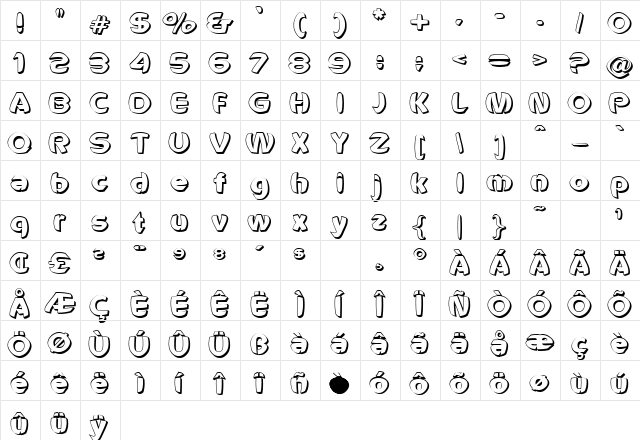
Voldemort Unleashed Regular
Design Context for Voldemort Unleashed Typeface
Voldemort Unleashed is a composed and adaptable typeface that performs quietly and consistently across a wide range of design contexts.